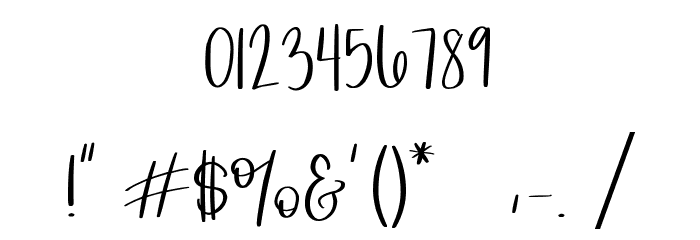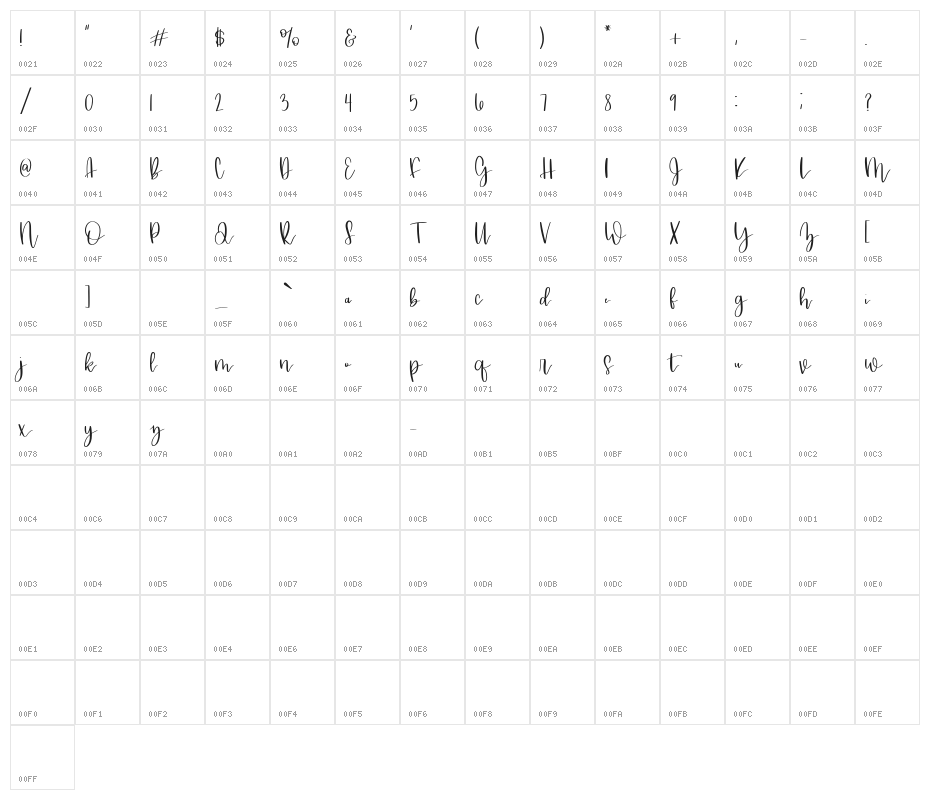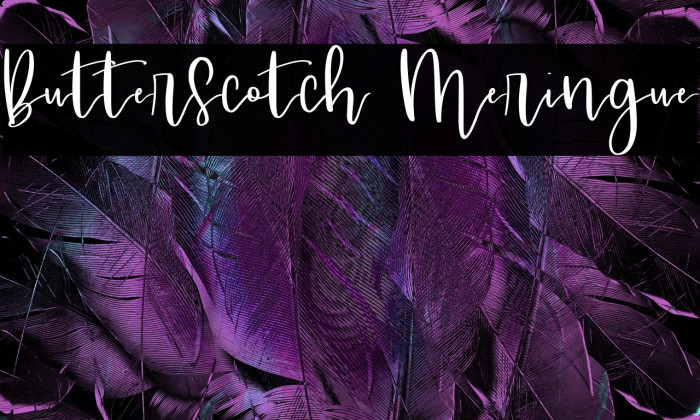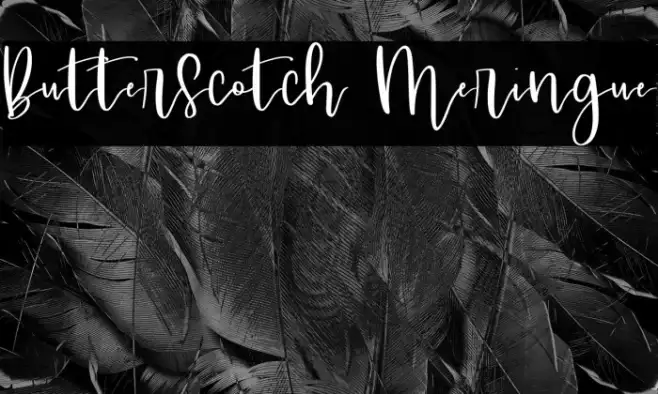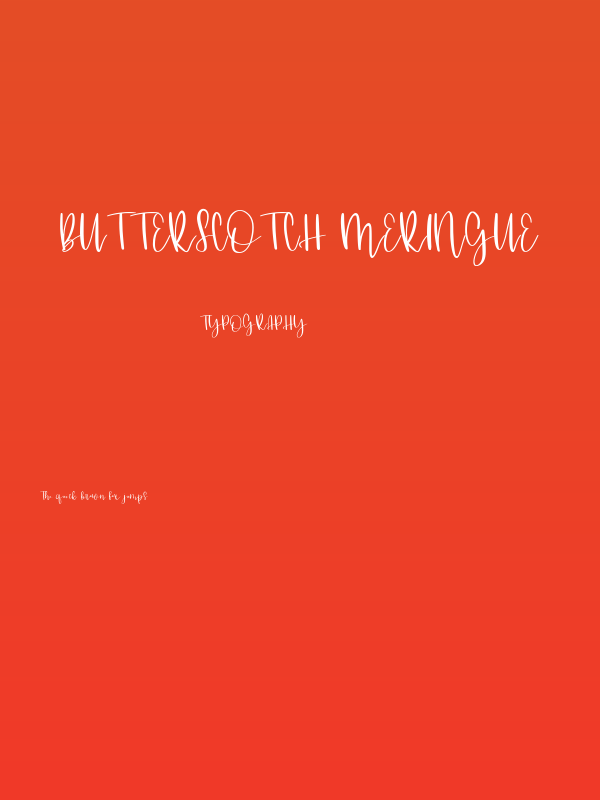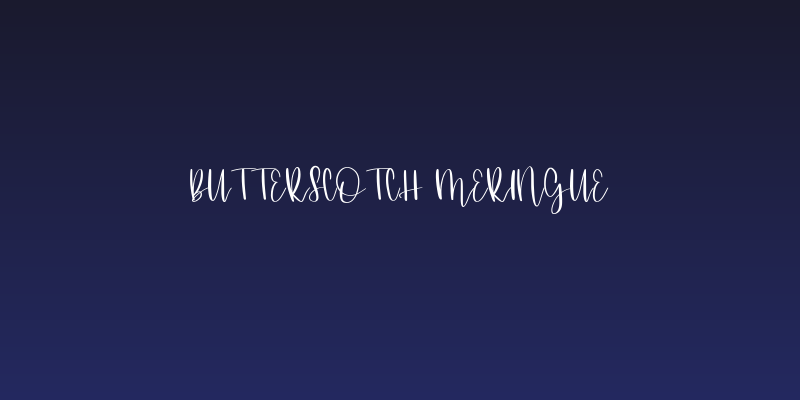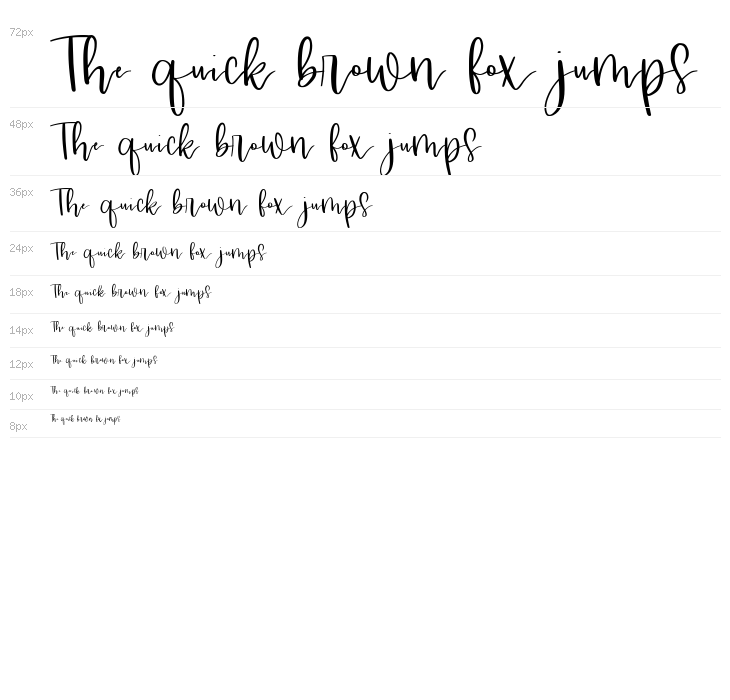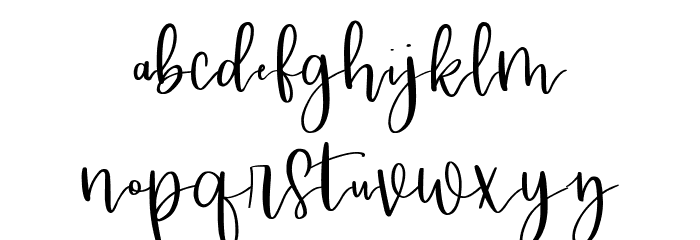
Butterscotch Meringue Font
Butterscotch Meringue Description
This font exudes a playful and whimsical charm, characterized by its flowing, cursive style. The letters are interconnected with smooth, sweeping strokes that give it an elegant yet casual feel. The uppercase letters are bold and expressive, while the lowercase letters maintain a consistent fluidity that enhances readability. The numerals are clear and distinct, matching the overall aesthetic with their rounded forms. Special characters are creatively designed, adding a unique touch to the font's personality. This font is perfect for projects that require a touch of elegance and creativity, such as invitations, greeting cards, or branding materials.